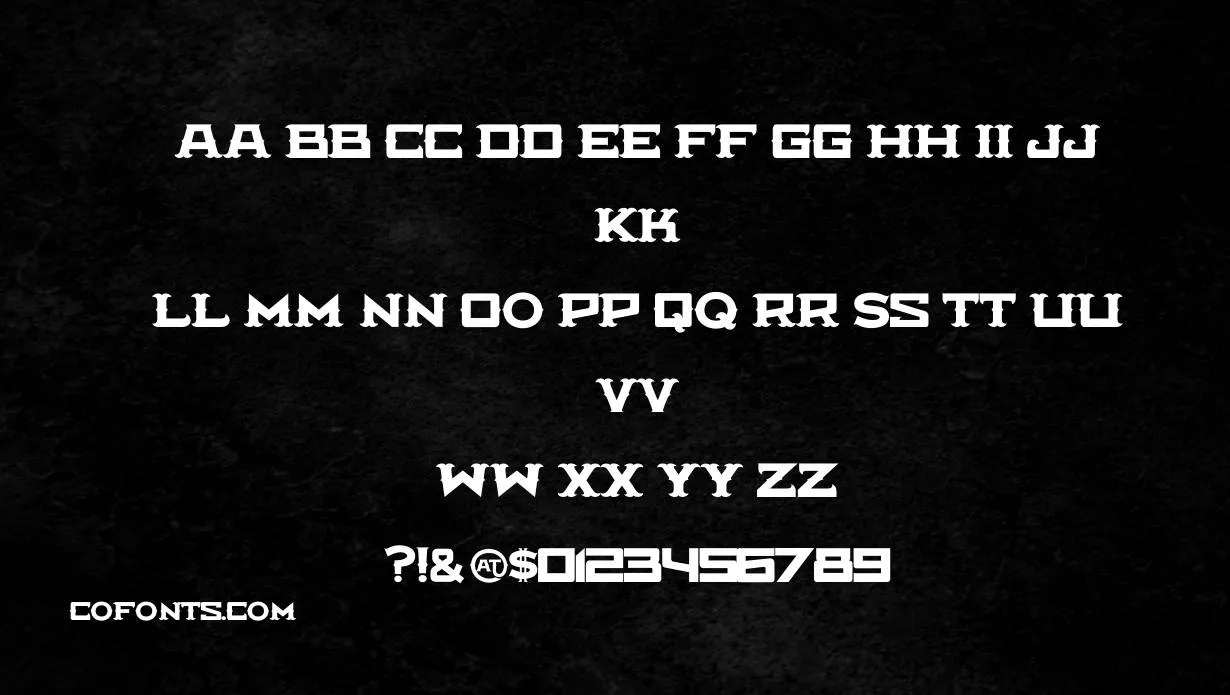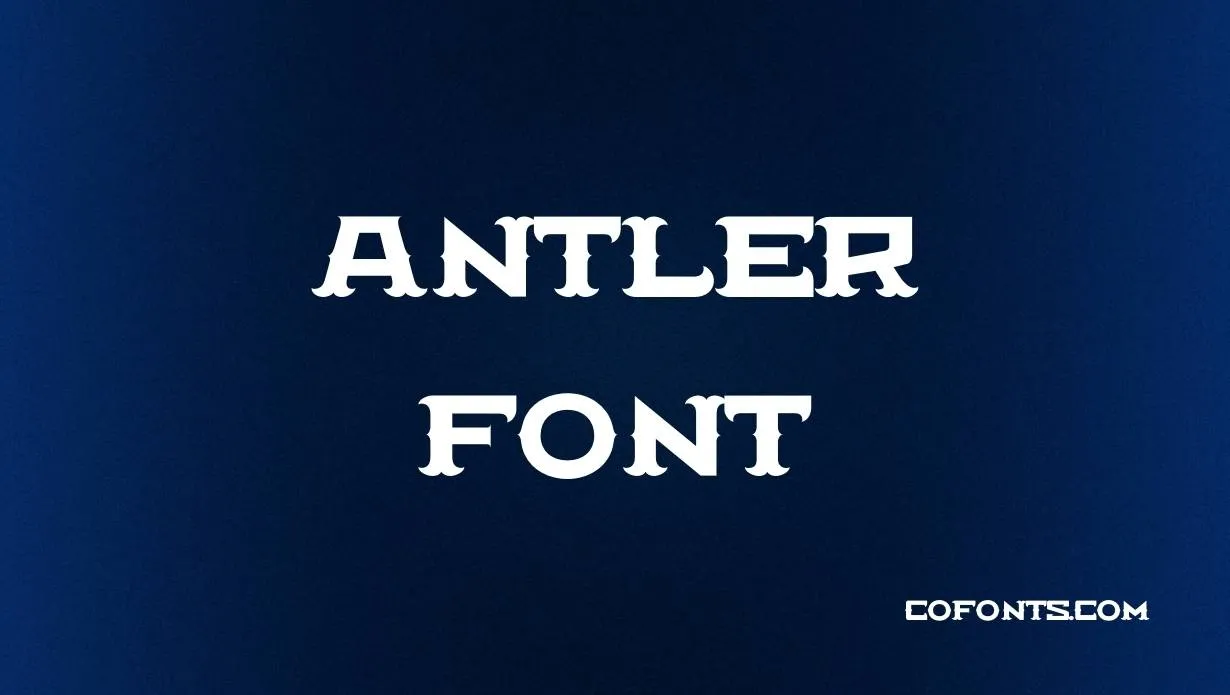
Designer
Kyle Wayne Benson
About Antler Font
Antler Font captures the raw, untamed spirit of the wilderness with its thick, uneven strokes and distinctive notched details that mimic natural textures like wood grain and animal tracks. This assertive display typeface is designed to make an immediate impact, evoking a sense of adventure, craftsmanship, and rugged authenticity. While inherently bold and best suited for headlines, logos, and short phrases, its careful design ensures legibility even at larger sizes. Antler is the go-to choice for brands in outdoor apparel, craft breweries, sporting goods, or any project that needs to communicate strength, tradition, and a connection to the natural world with a modern, hand-tooled aesthetic.